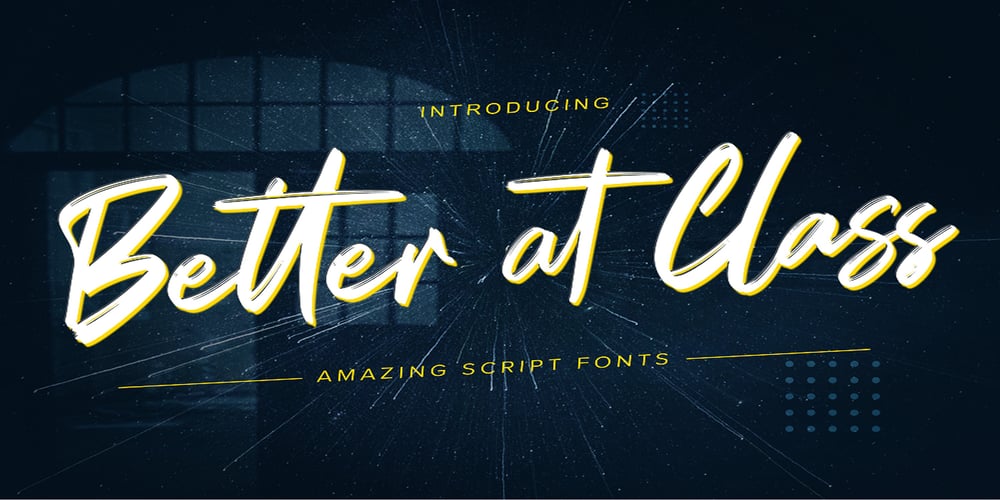
Better at Class
Better at Class font
Better at Class Font Family was designed by Abdul Malik Wisnu, Anang Fibriyanto and published by Gassstype. Better at Class contains 1 styles and family package options. Introducing Better at class – Brush Script is a Authentic brush script that is written casually and quickly. Letters are made with procreate. Then scanned and carefully drawn into vector format.That is why Better at class has charming, authentic and relaxed characteristic more natural look to your text with a more natural look to your text. You can activate Ligature OpenType panel, Better At class Perfect for designs,branding projects, Logo design, Quotes product packaging